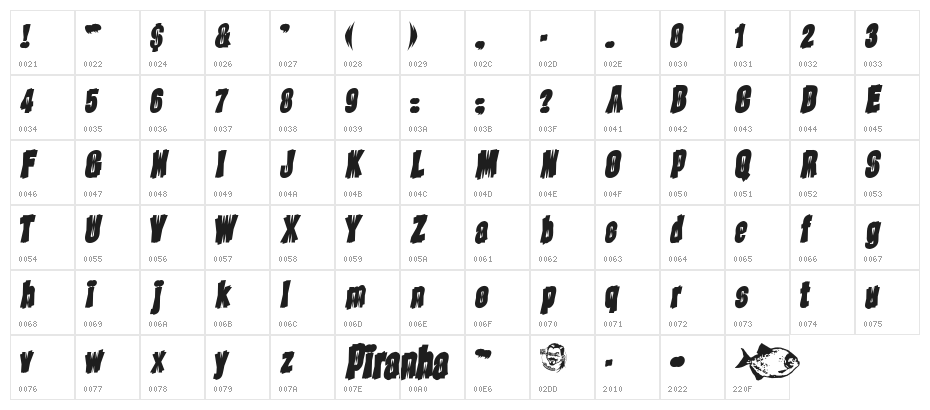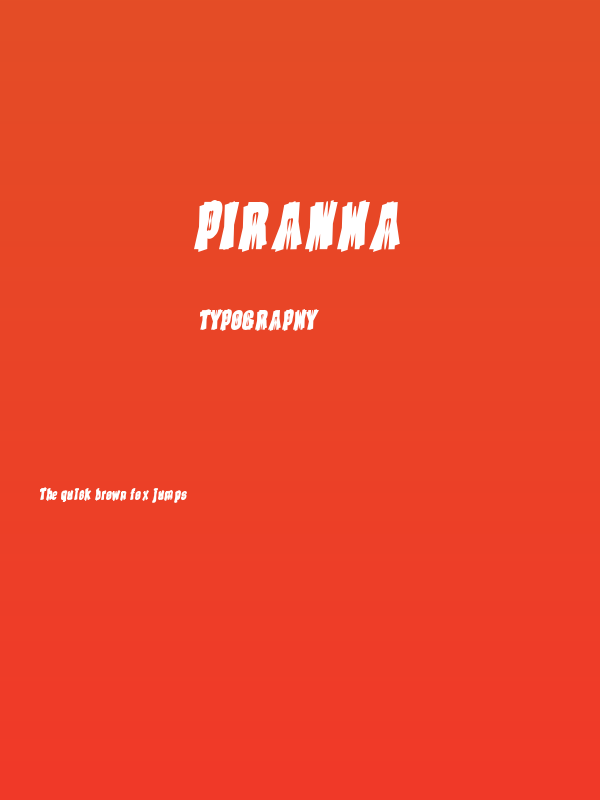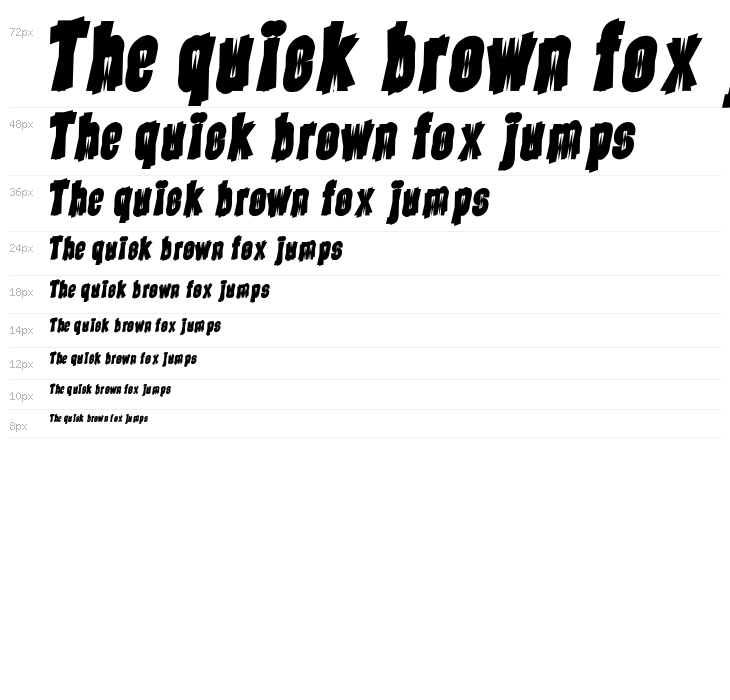
Piranha Font
Piranha Description
This font features a bold and aggressive style, characterized by sharp, jagged edges and a dynamic, slanted orientation. The letters appear as if they are being torn or shredded, giving a sense of movement and intensity. The uppercase and lowercase letters maintain a consistent design, with exaggerated angles and a strong presence. Numbers and special characters follow the same aesthetic, ensuring a cohesive look across all glyphs. The font's unique appearance makes it stand out, ideal for projects that require a bold statement.
| Overall Style | Modern, Aggressive |
| Proposed Projects | Perfect for edgy posters, music album covers, extreme sports branding, or any project needing a bold, impactful typeface. |